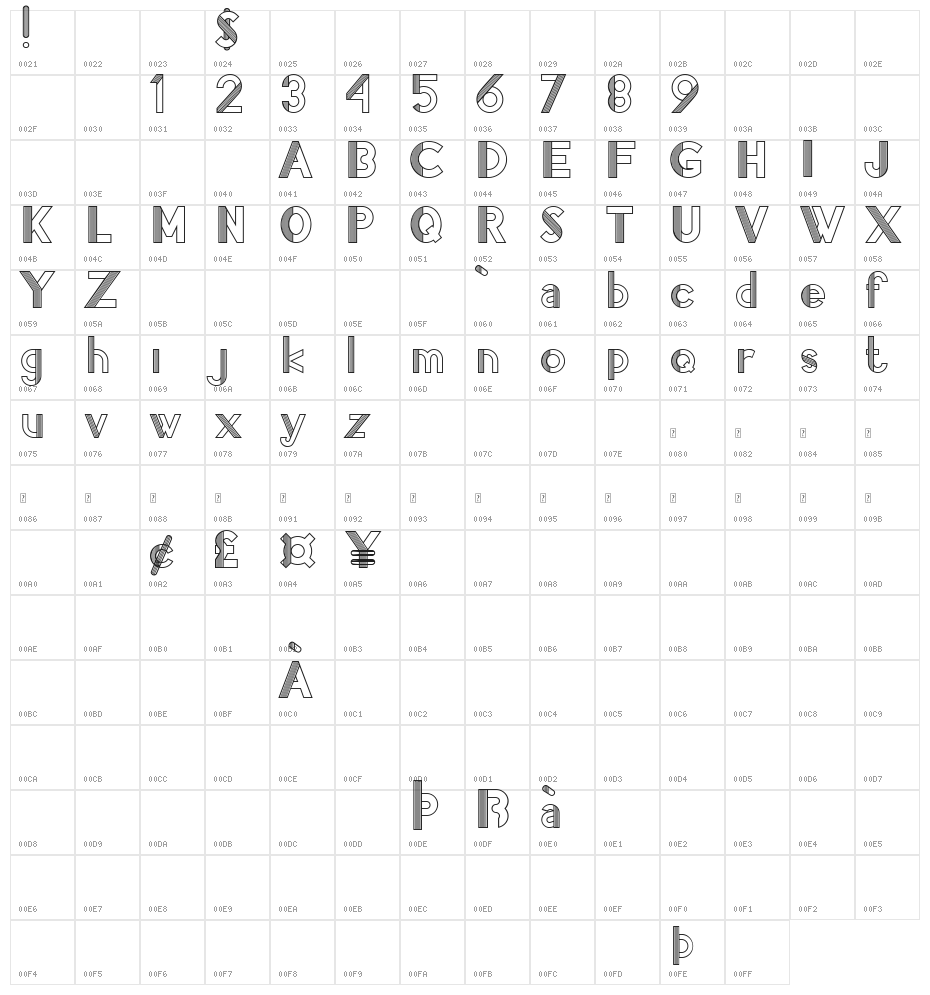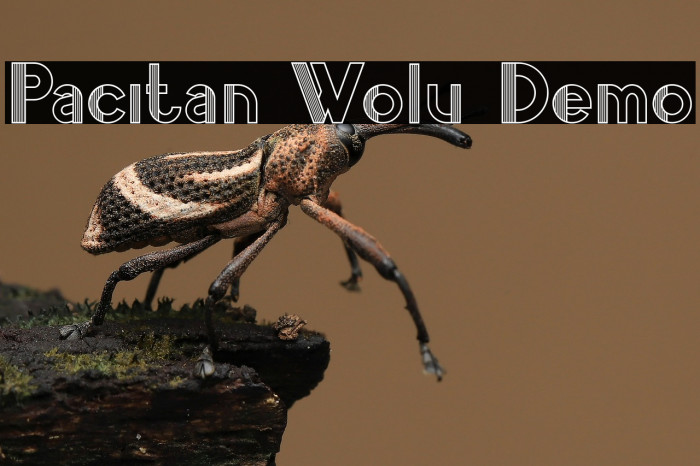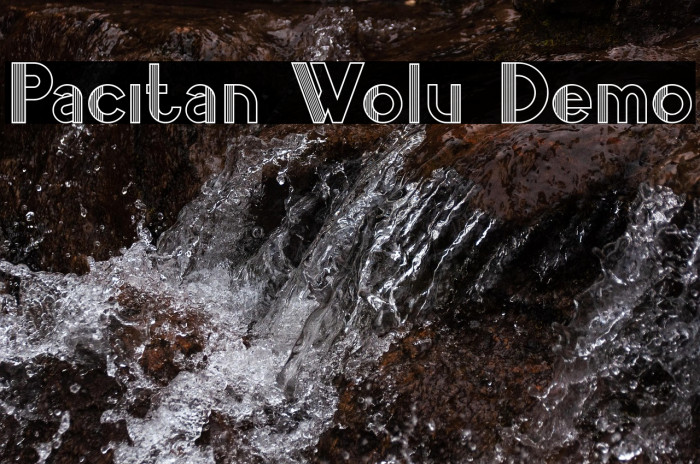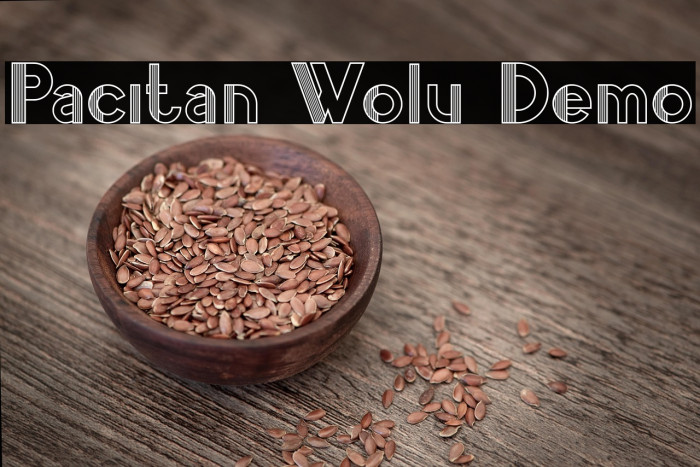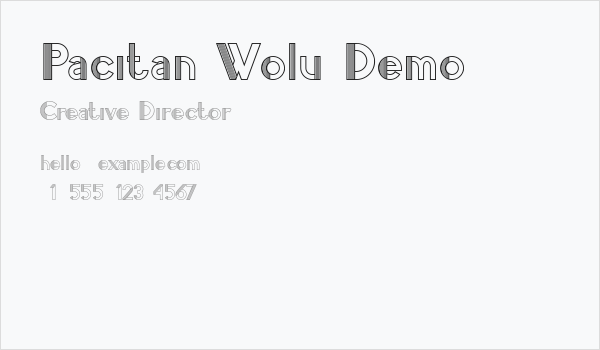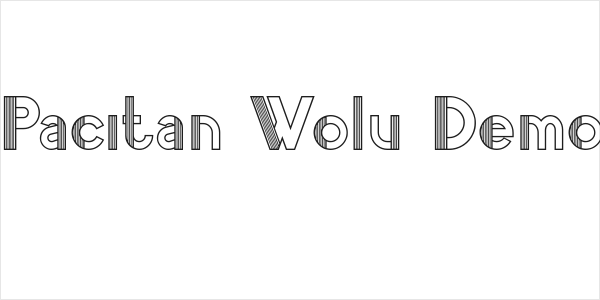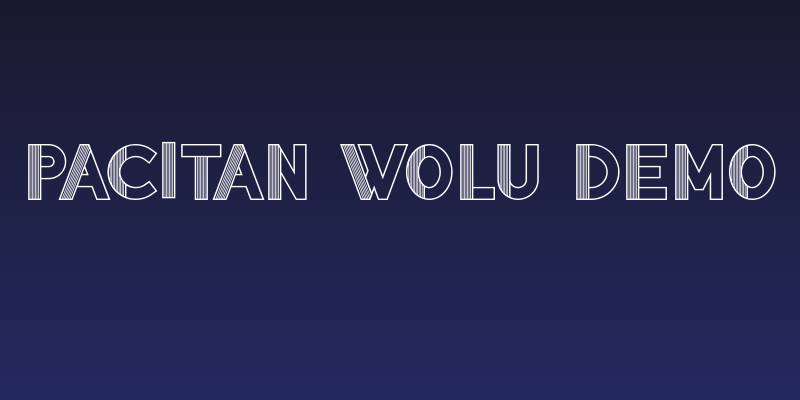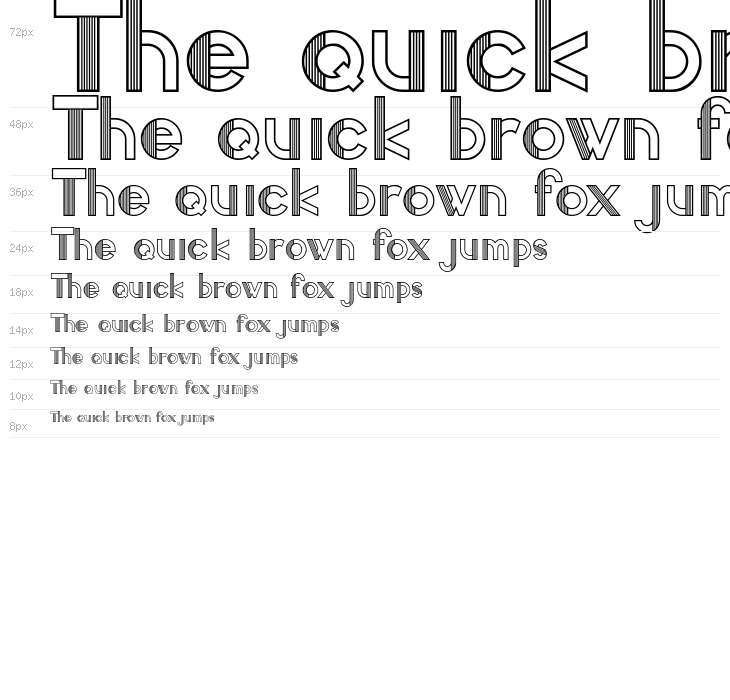
Pacitan Wolu Demo Font
Pacitan Wolu Demo Description
This font features a unique and striking design with a three-dimensional, striped appearance. Each character is outlined with parallel lines, creating a sense of depth and texture. The uppercase and lowercase letters maintain a consistent style, with clean, geometric shapes that are both modern and playful. The numbers and special characters follow the same design principles, ensuring a cohesive look across all glyphs. This font's distinctive style makes it ideal for eye-catching designs where the text needs to stand out.
| Proposed Projects | Ideal for branding, posters, headlines, and any project requiring a bold, modern aesthetic. |